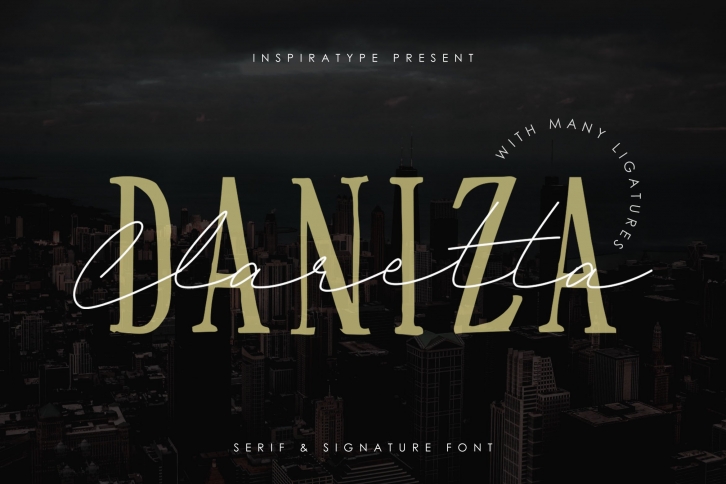
Daniza Claretta is a gorgeous font that was realeased on June 11, 2020. The font can be used in many style contexts and design environments. Perfect for invitations, magazines, websites, logos, and more! It was designed by InspiraType and the file size is 8.71 MB. Thanks for checking out this font!